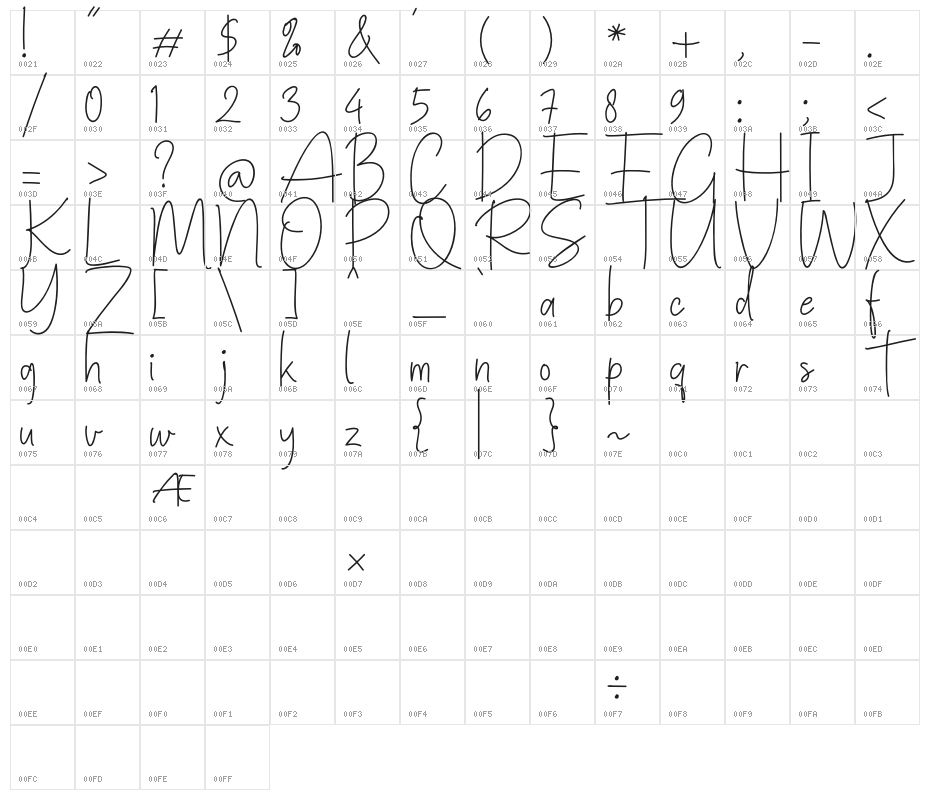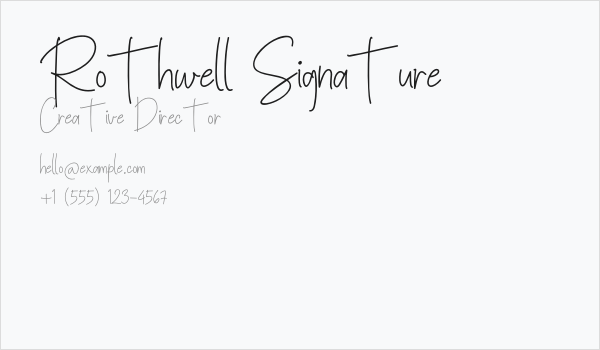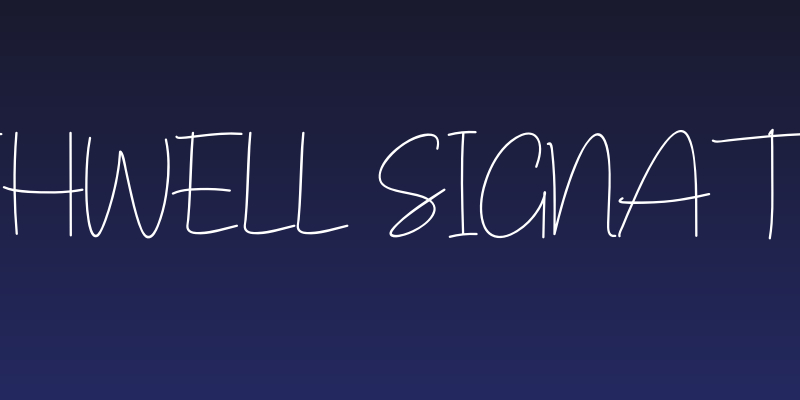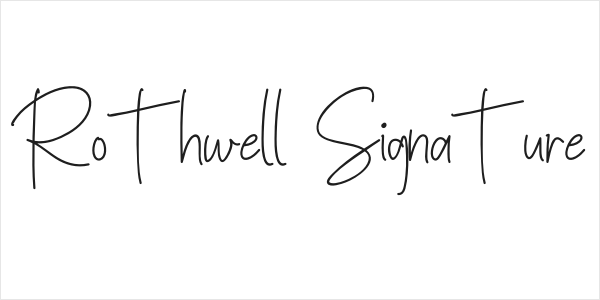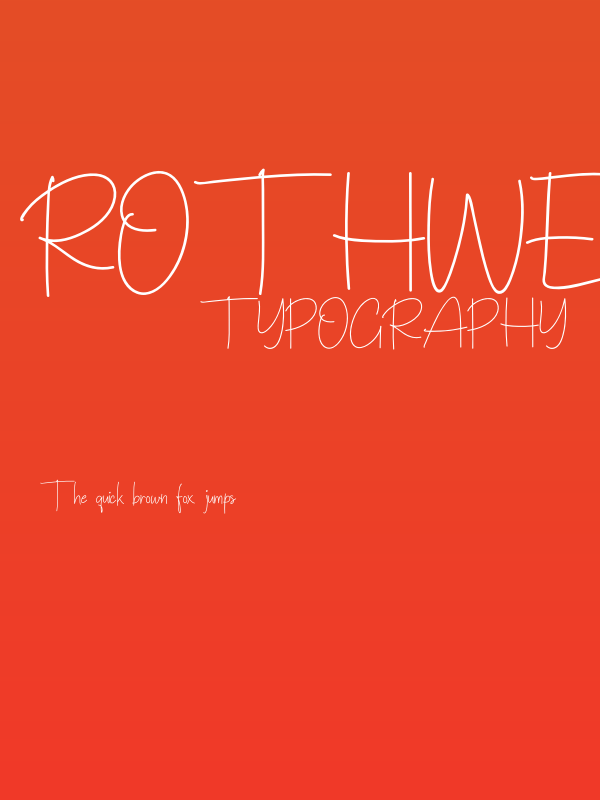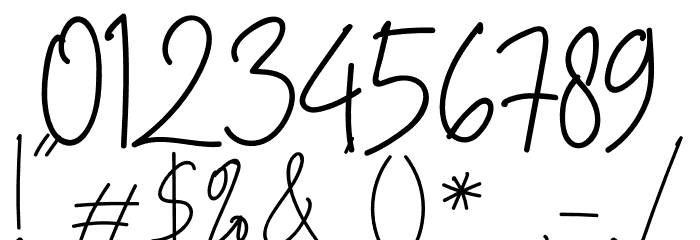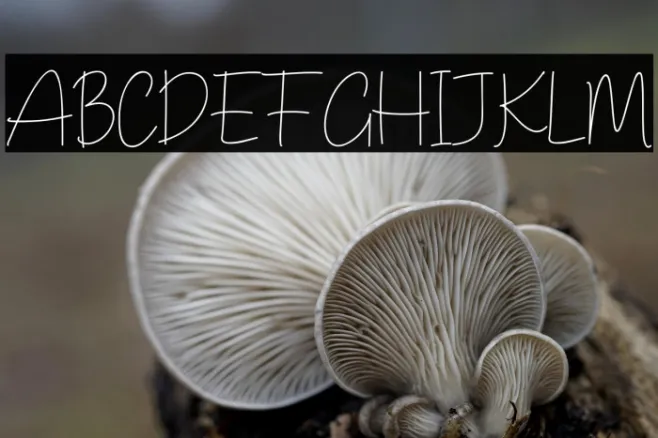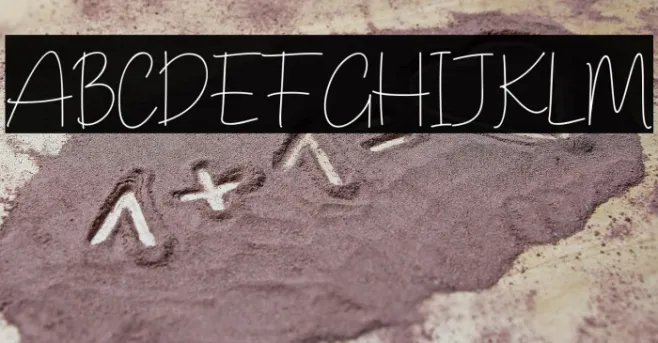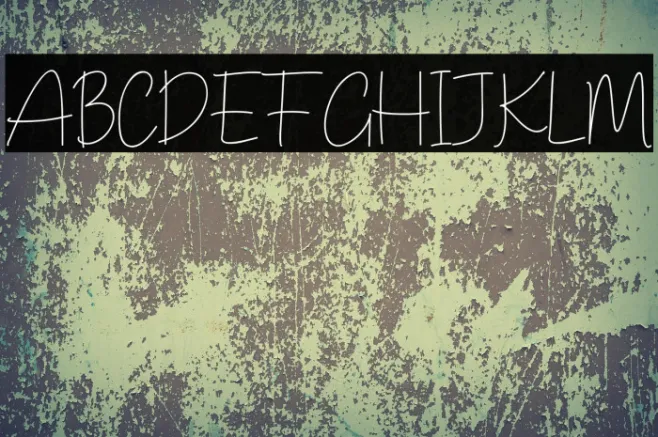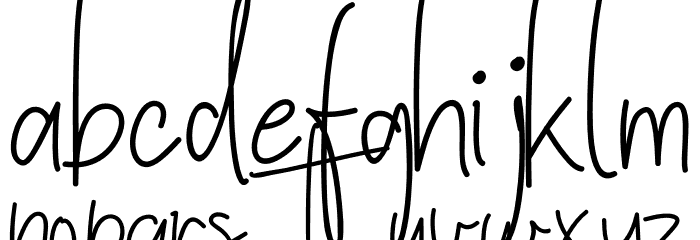
Rothwell Signature Font
Rothwell Signature Description
This font exhibits a casual, handwritten style with a playful and informal appearance. The letters are elongated and slightly irregular, giving them a dynamic and lively feel. The uppercase characters maintain a consistent height, while the lowercase letters vary in size, adding to the whimsical nature of the design. The numerals are similarly styled, with a smooth flow and a touch of quirkiness. Special characters are integrated seamlessly, maintaining the overall aesthetic. This font's unique charm makes it suitable for creative and artistic projects.
| Use Case | Logos, Invitations, Creative projects |
| Proposed Projects | Ideal for greeting cards, invitations, personal branding, and creative projects. |